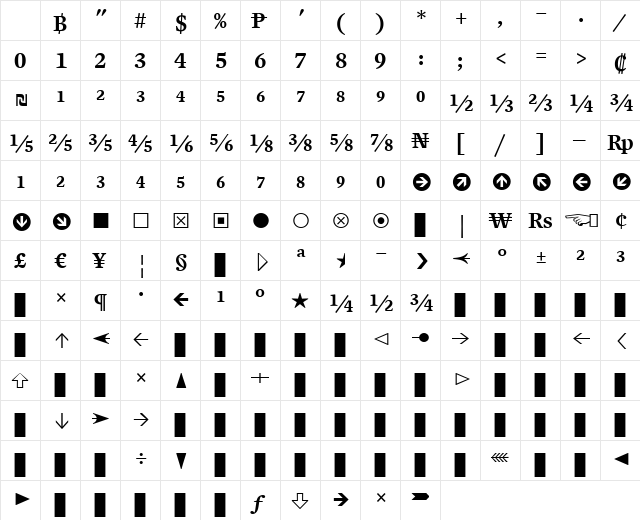
Complete Mercury Numeric G2 SemiBold glyph index. Displaying only characters natively supported by Mercury Numeric G2 SemiBold font.
Mercury Numeric G2 is a composed and adaptable typeface that performs quietly and consistently across a wide range of design contexts. Its bold stroke weight gives it real presence on the page.